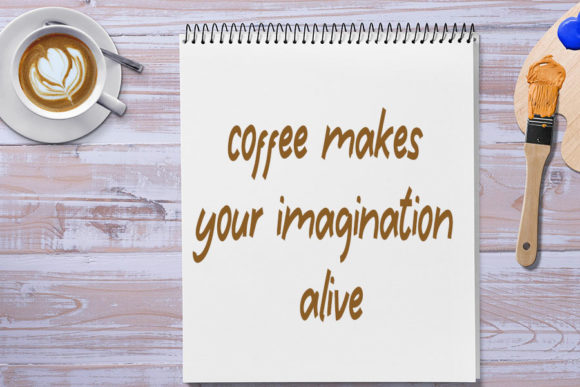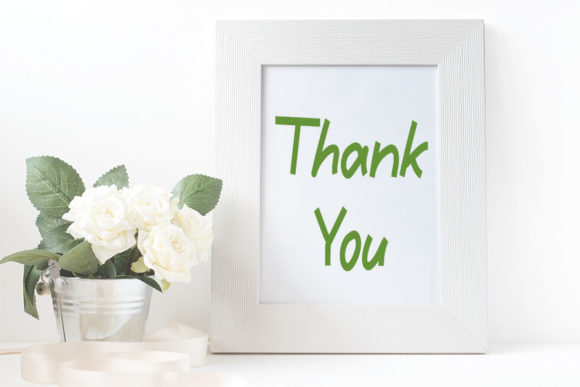
About Butter Sweet Font
Butter Sweet is a bold and playful handwritten font that adds a touch of whimsy and charm to your designs. With its clean and simple letterforms, this font is perfect for adding a fun and lively vibe to your creative projects.
The bold strokes of Butter Sweet give it a strong and confident appearance, making it stand out and grab attention. Whether you’re designing logos, posters, invitations, or social media graphics, this font will bring your ideas to life with its energetic and vibrant style.
The simplicity of Butter Sweet makes it versatile and easy to use in a variety of design contexts. Its legible letterforms ensure readability, while the handwritten touch adds a personal and human element to your designs. This font works well for both headlines and body text, allowing you to create visually appealing compositions with a cohesive look.
Butter Sweet is the perfect choice for projects that require a playful and lively aesthetic. Its bold and simple style works well in children’s designs, food and beverage branding, event promotions, and any other creative endeavor where you want to add a touch of fun and excitement.
So, let your creativity soar with Butter Sweet. Add this bold and simple handwritten font to your design toolkit and watch as it brings a delightful and lively energy to your most creative ideas.